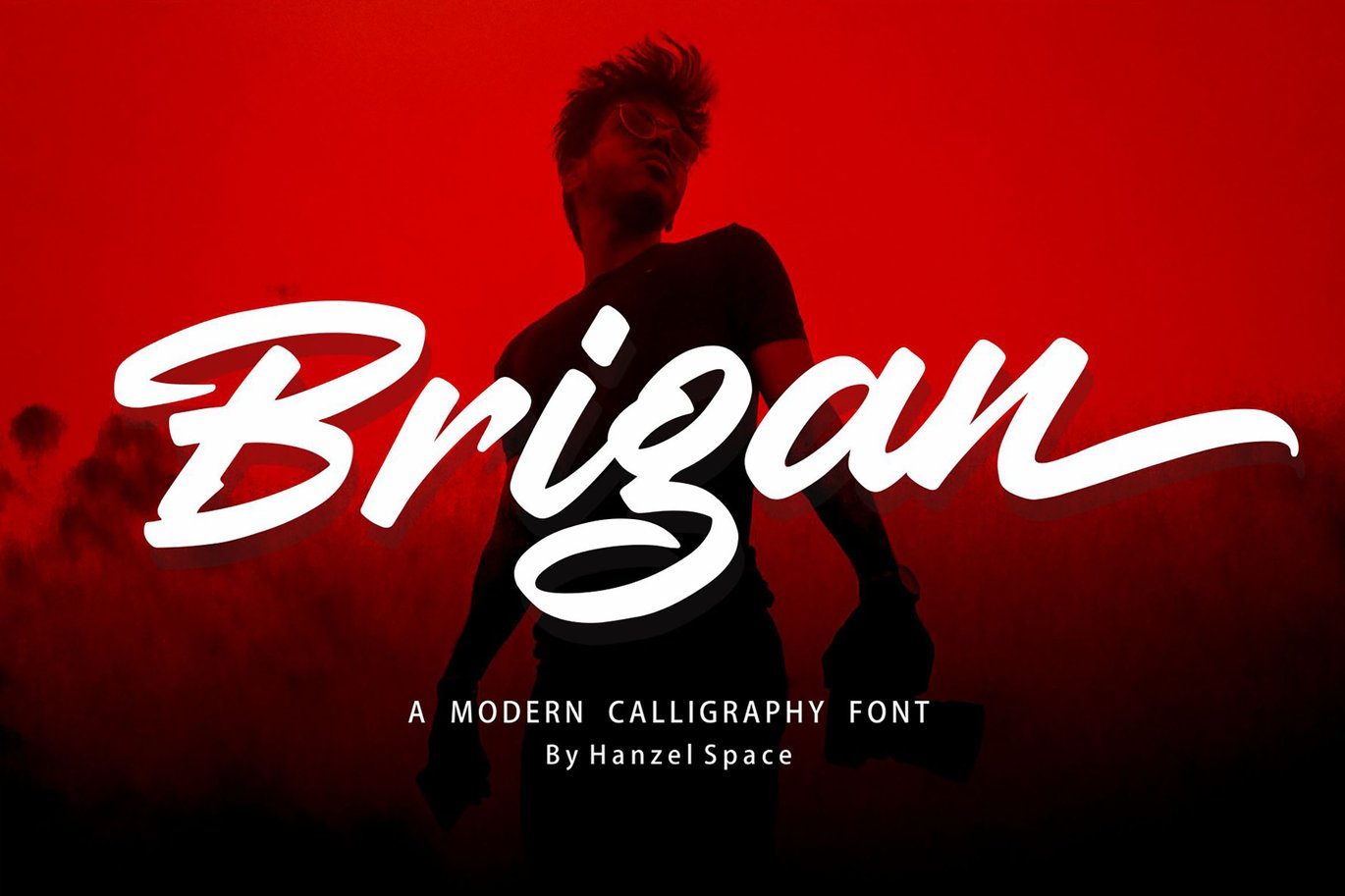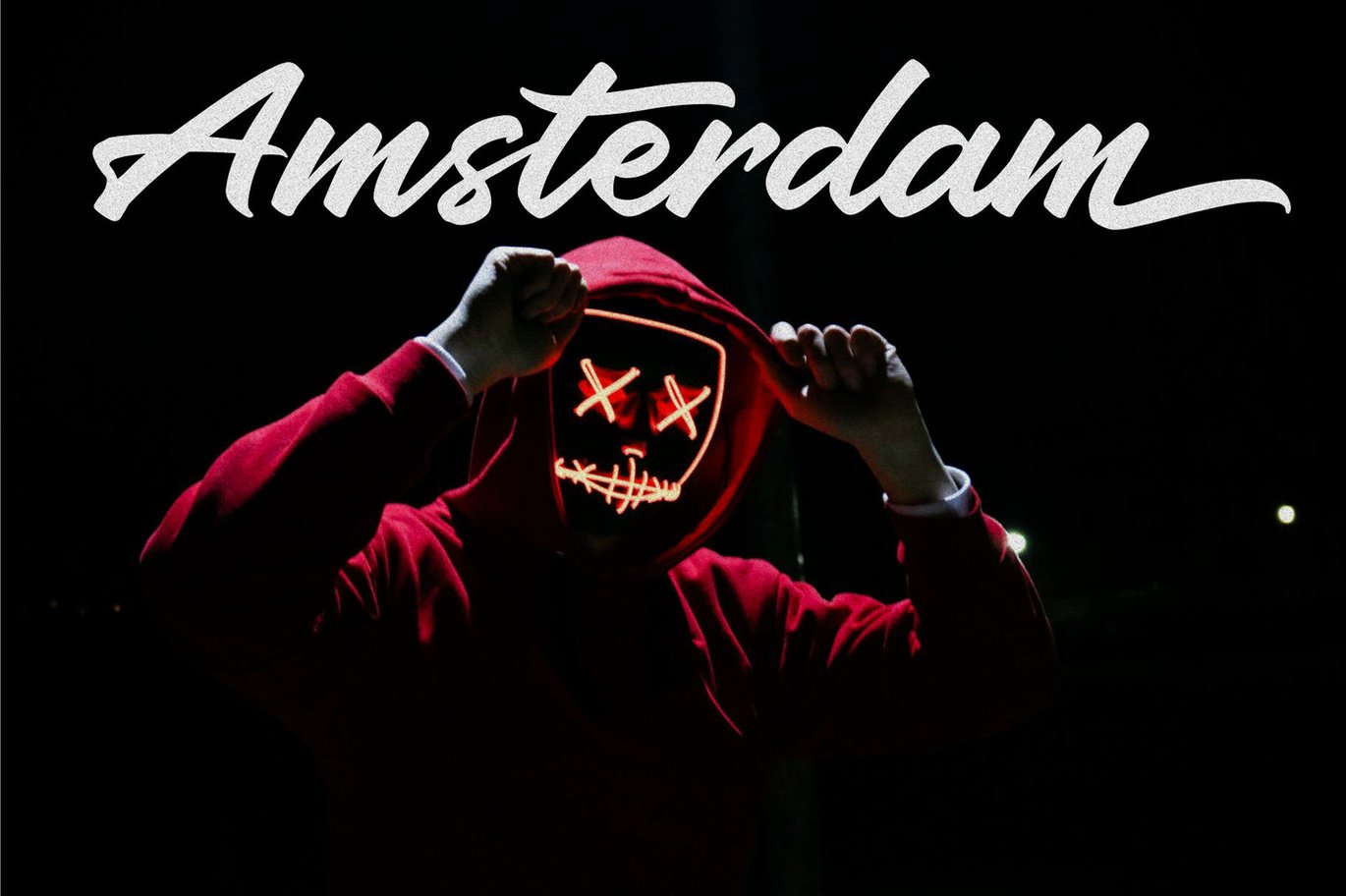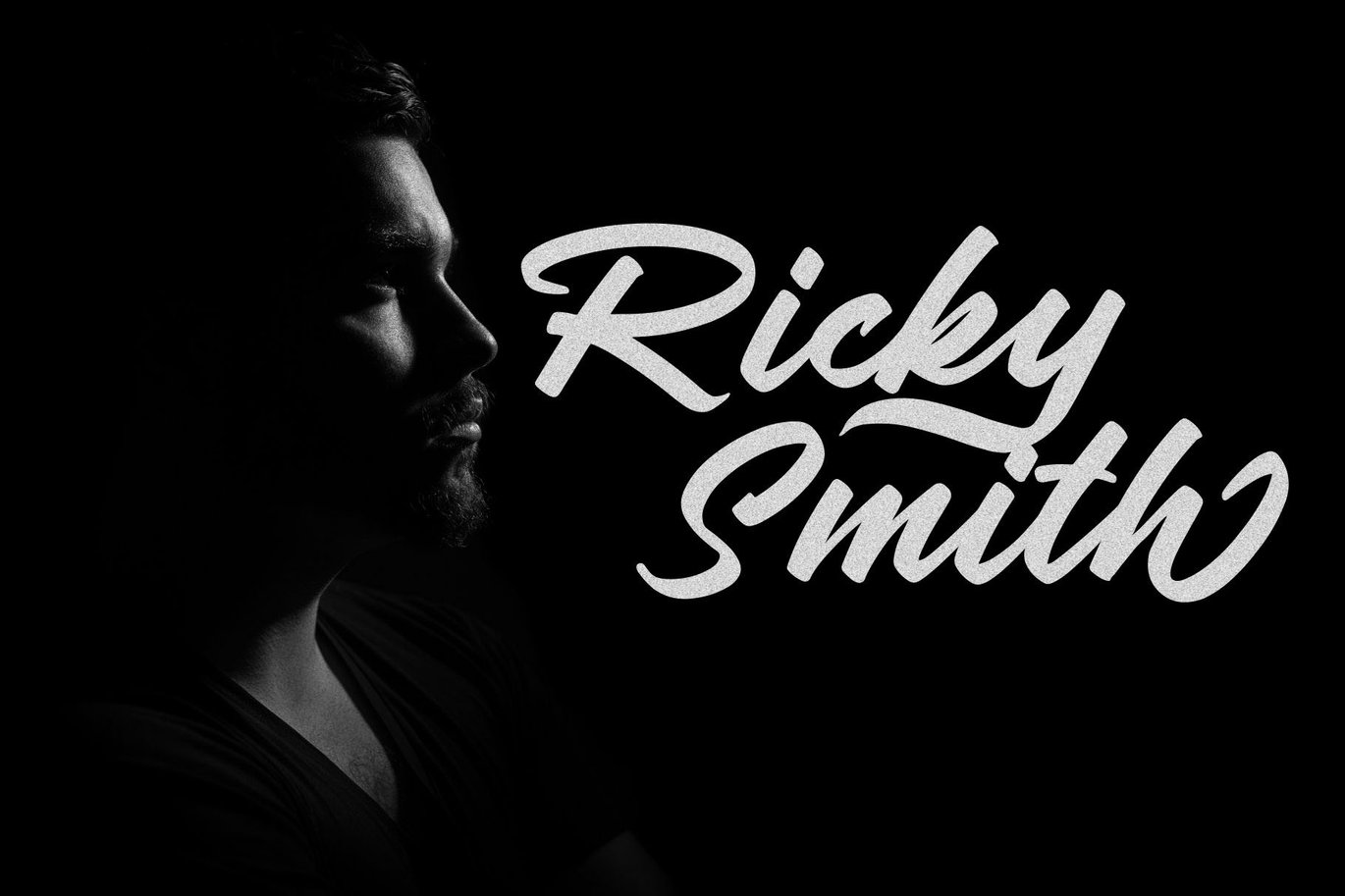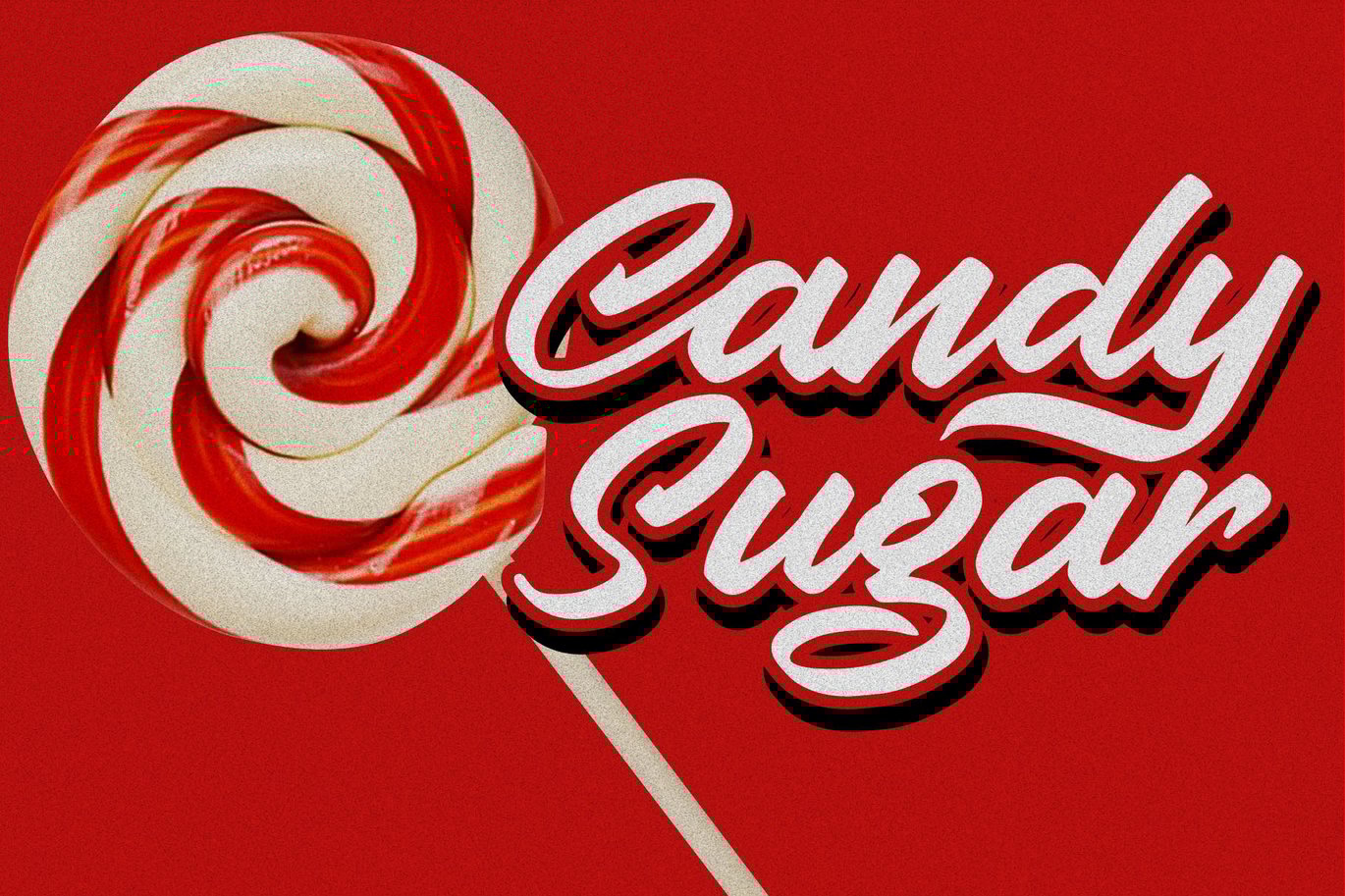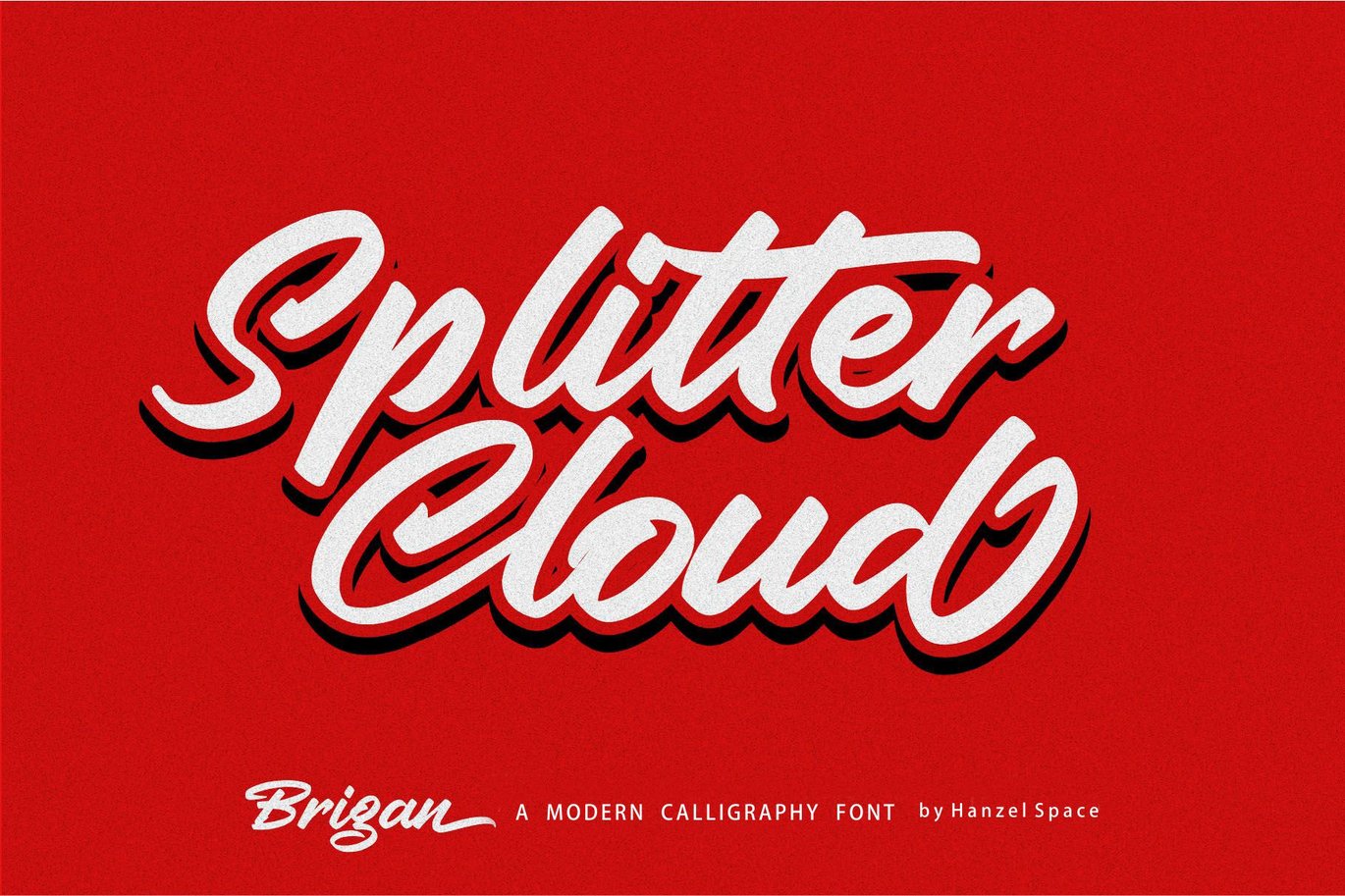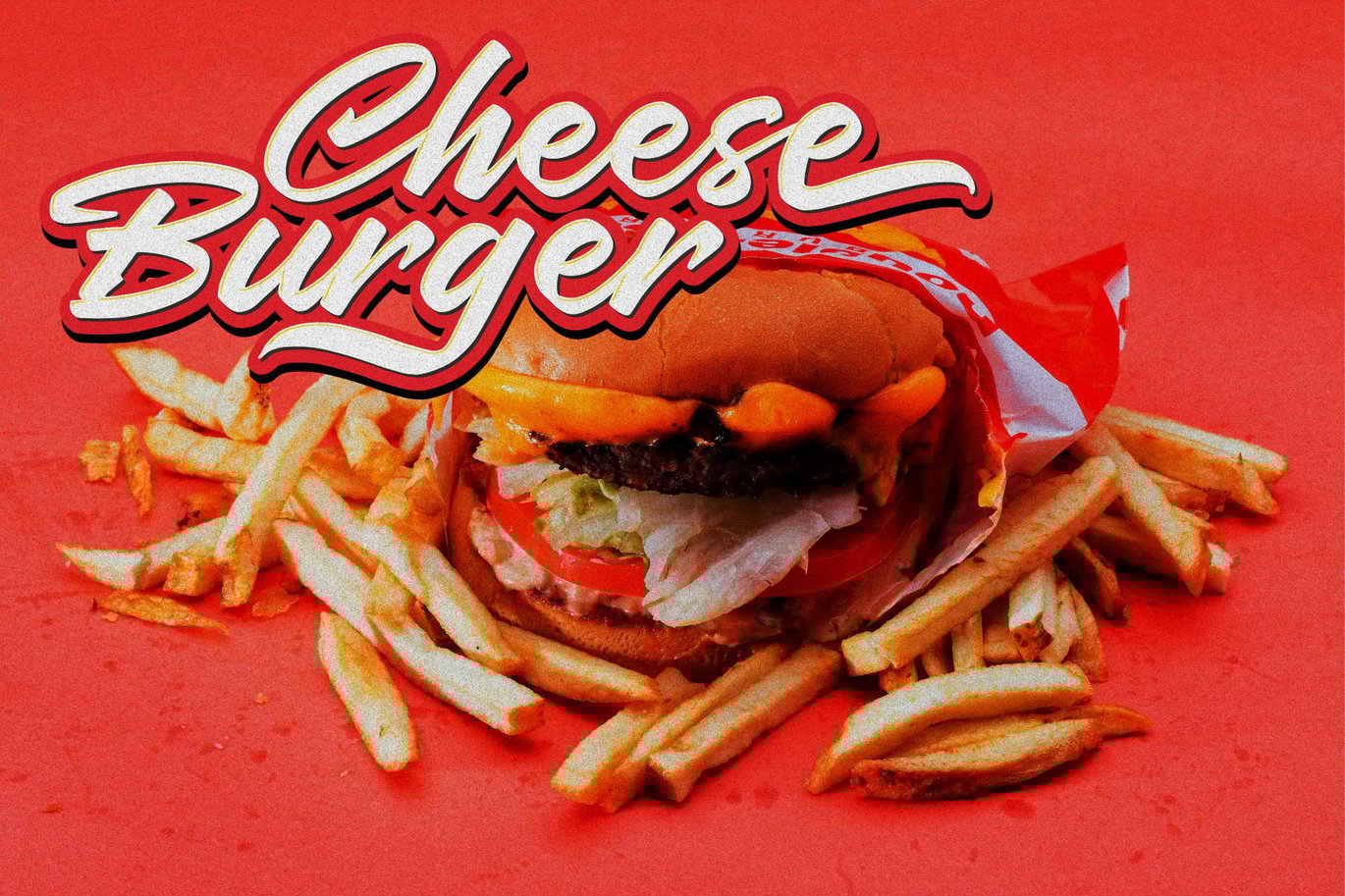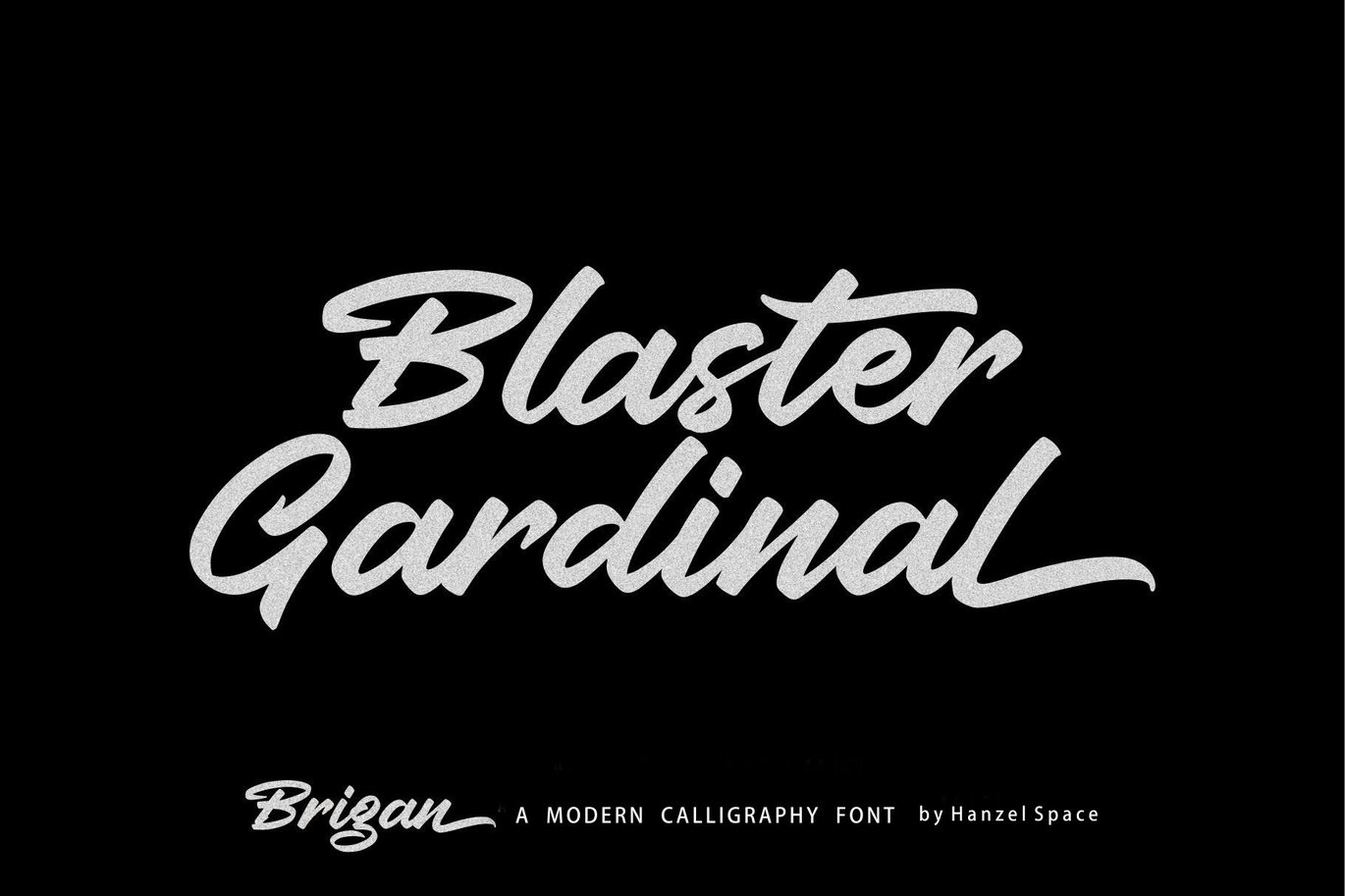
Brigan Calligraphy Font
Brigan Inspired by contemporary fashion and streetwear and combination with Hand Lettering style. I’m made with touch personality every single curve. I hope this can inspire you from your work. and a very bouncy baseline It has a perfectly paired complimentary marker font. Ideal for logos, handwritten quotes, product packaging, headers, posters, merchandise, social media & greeting cards.